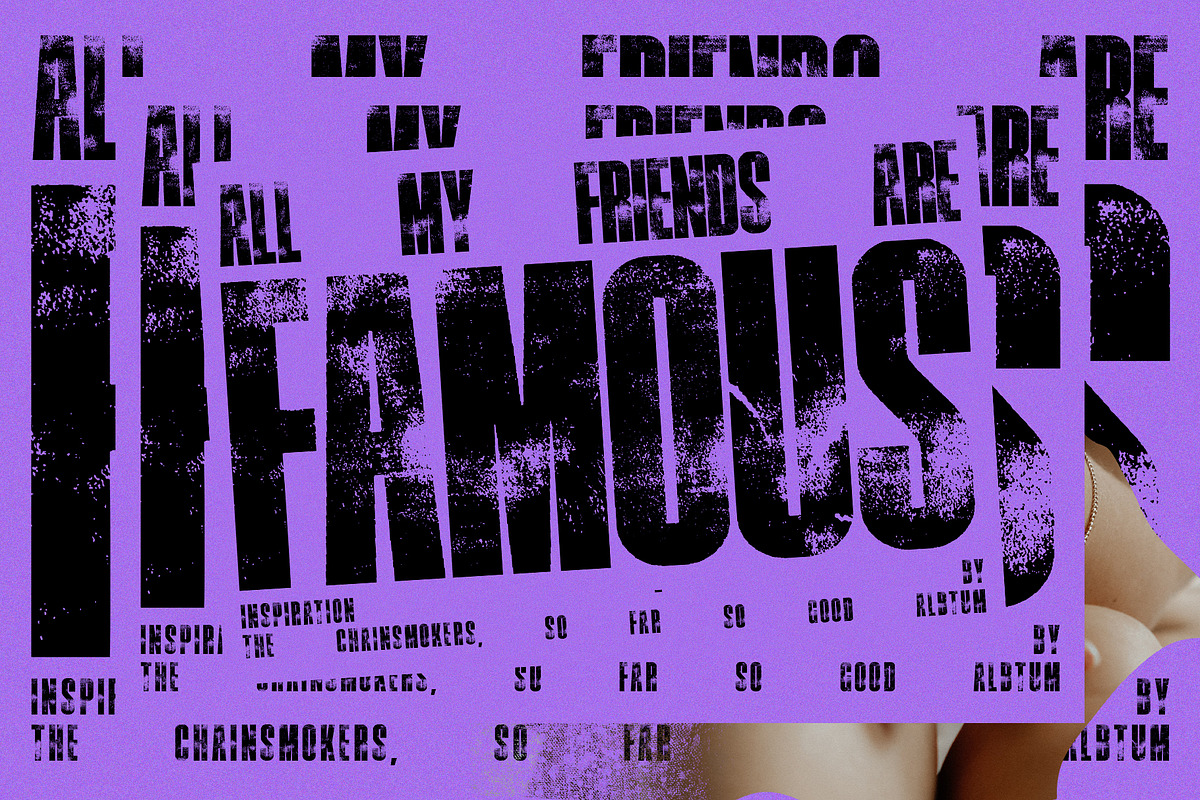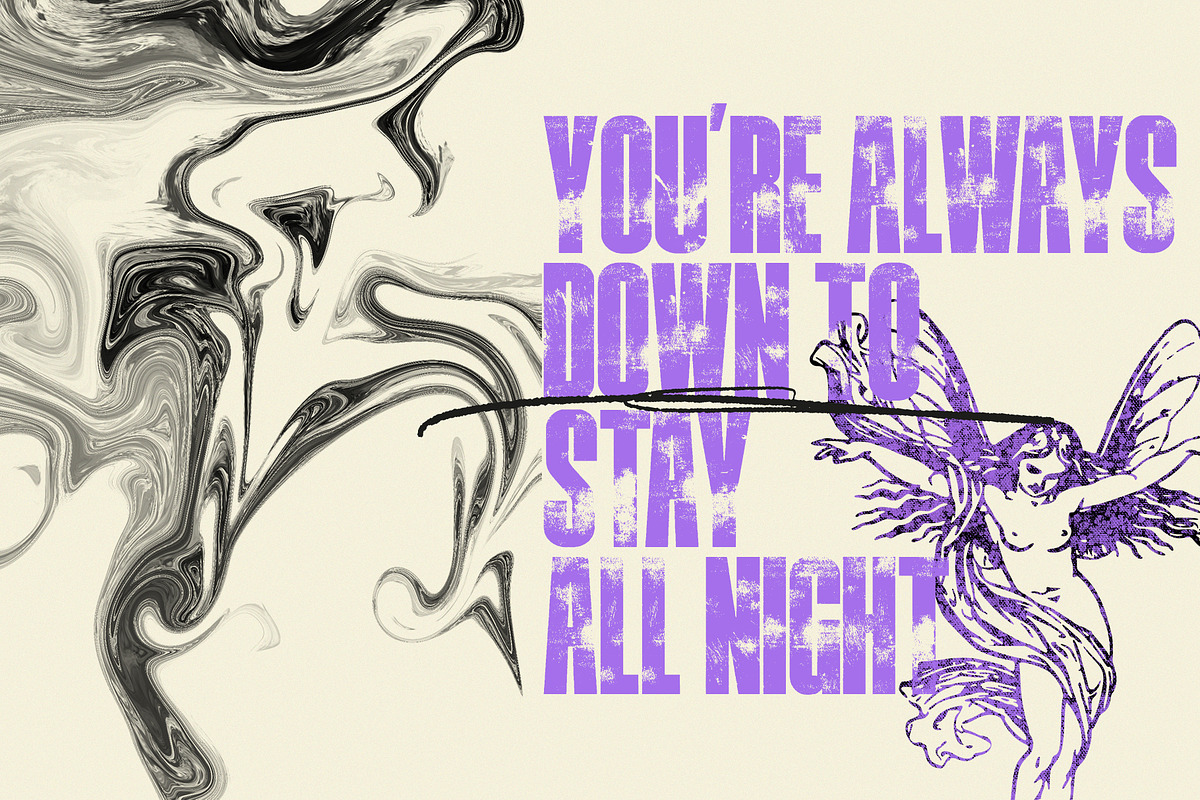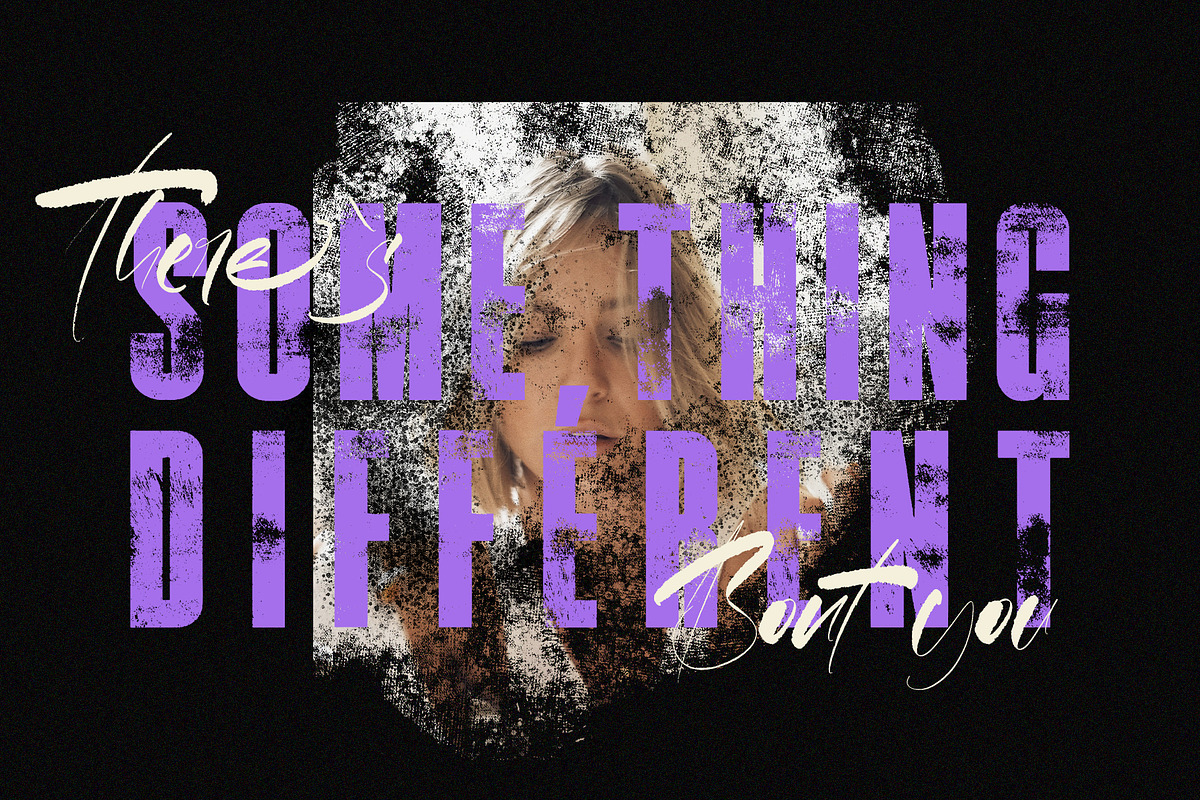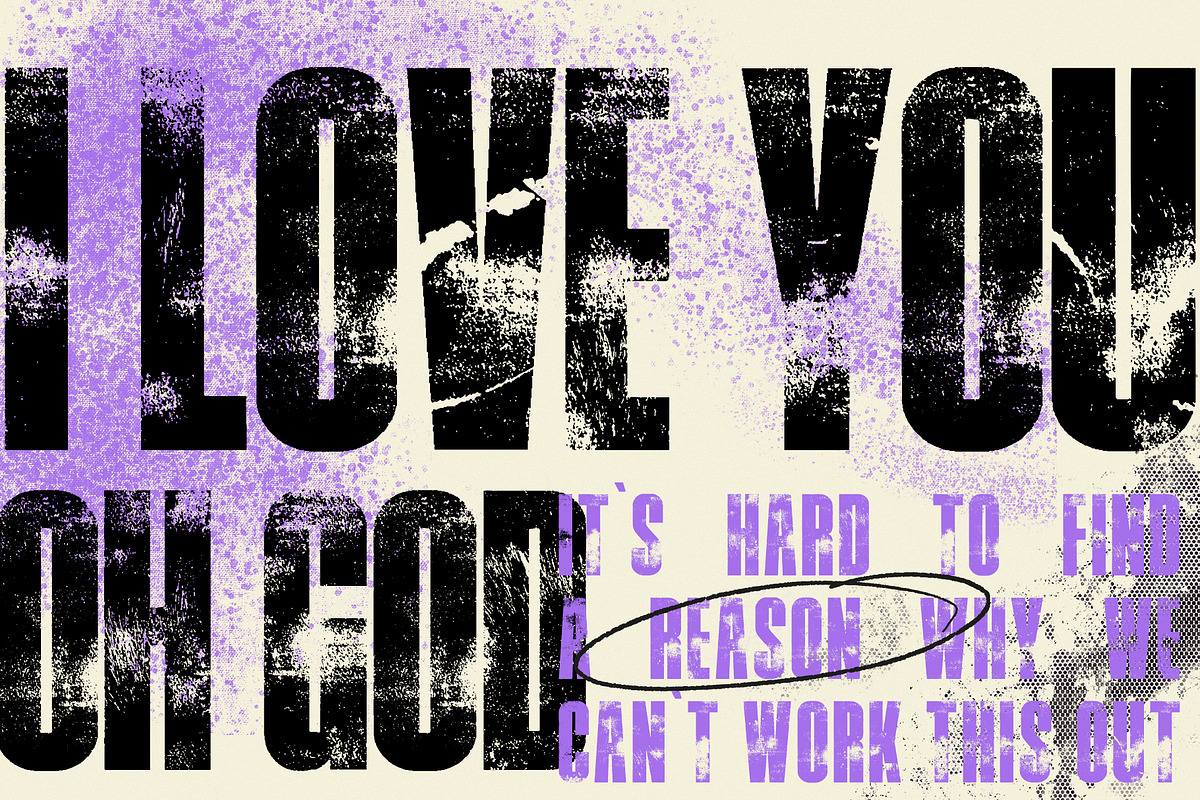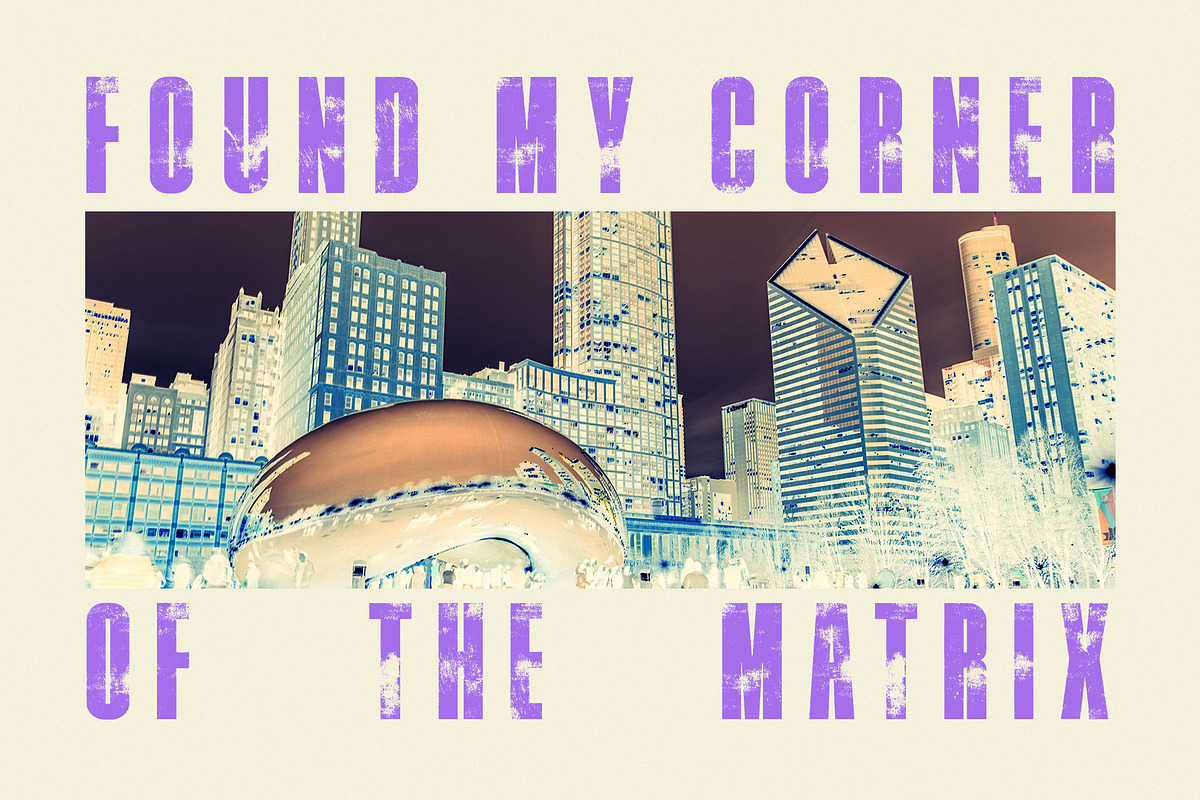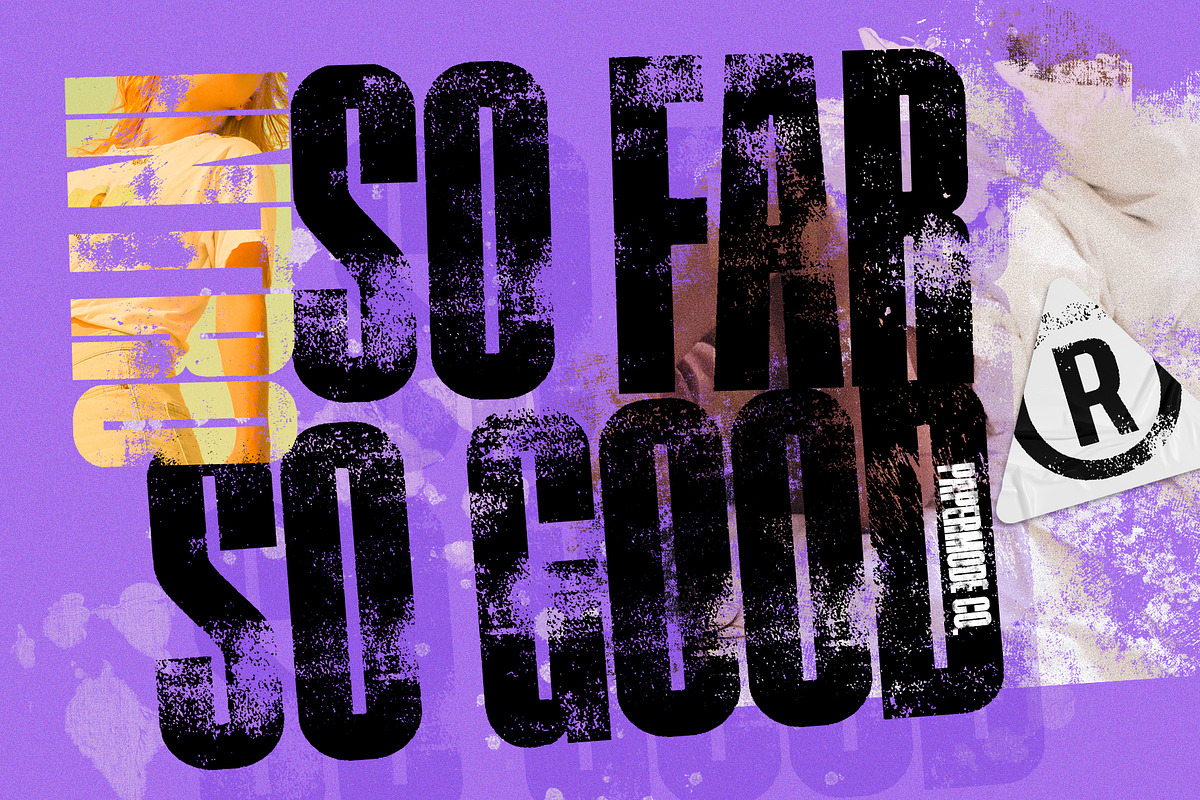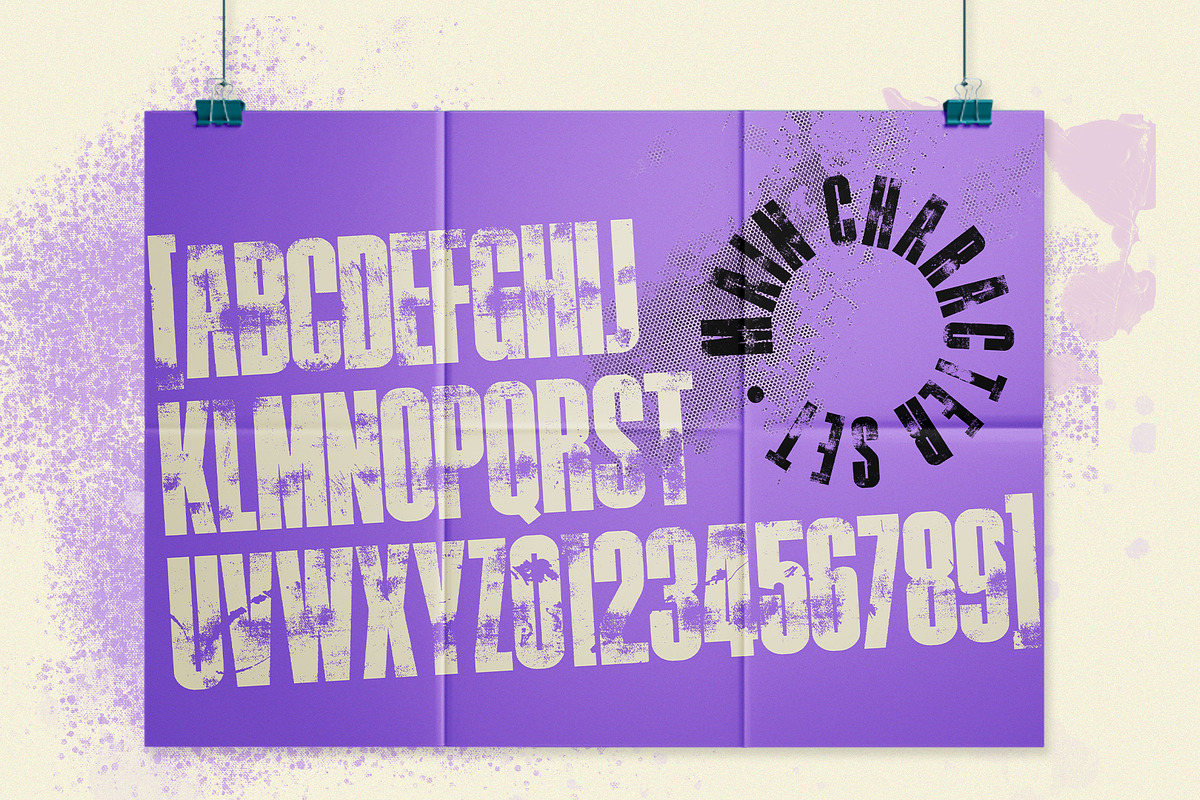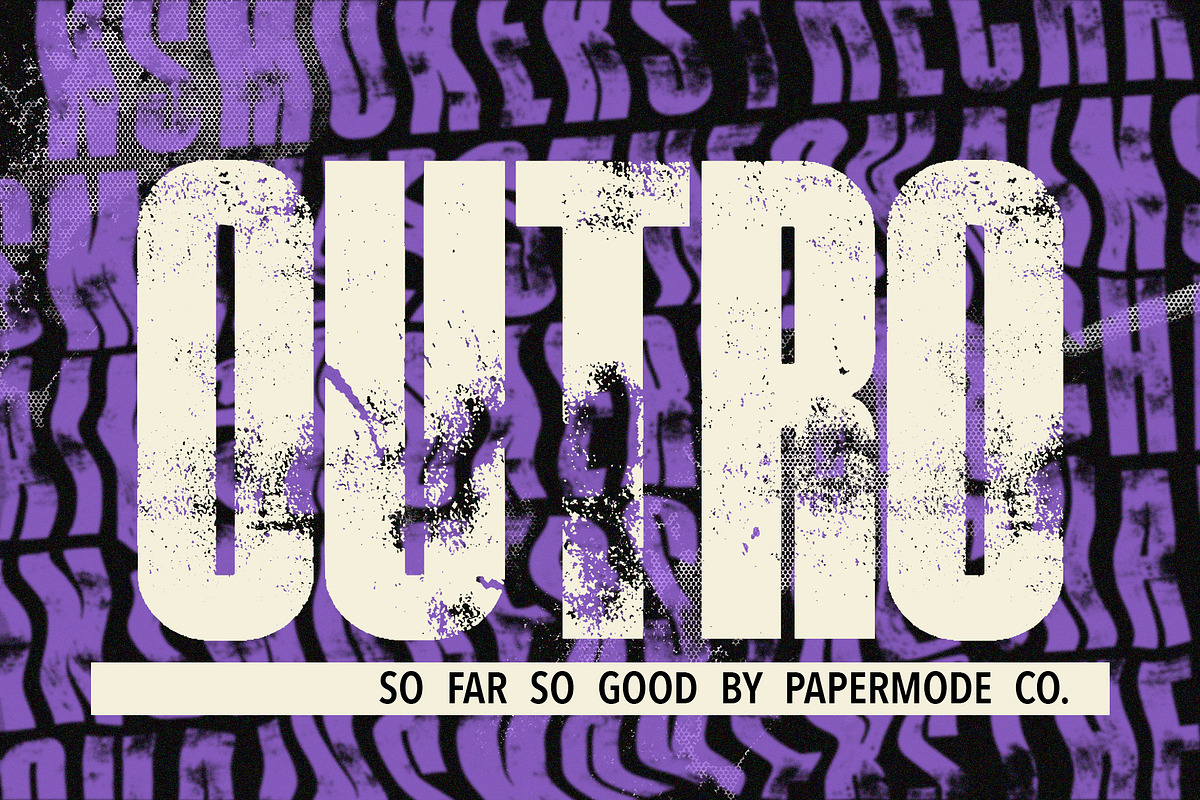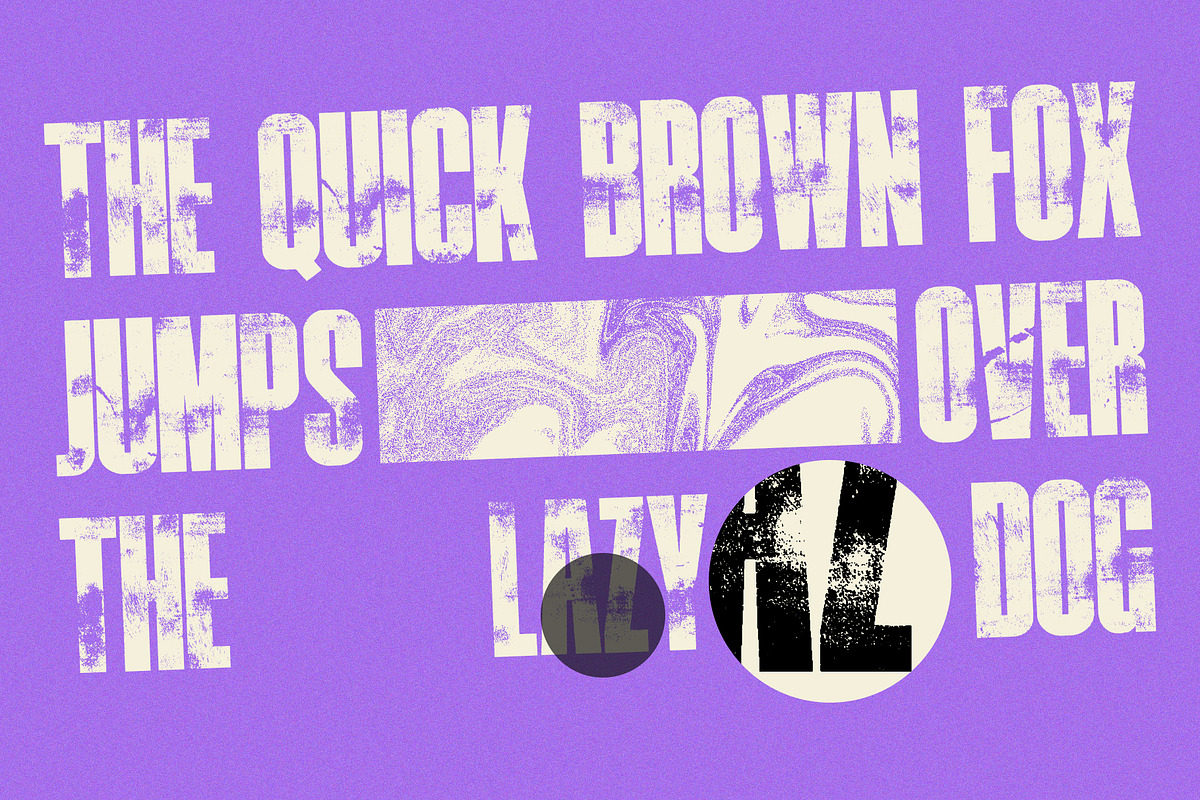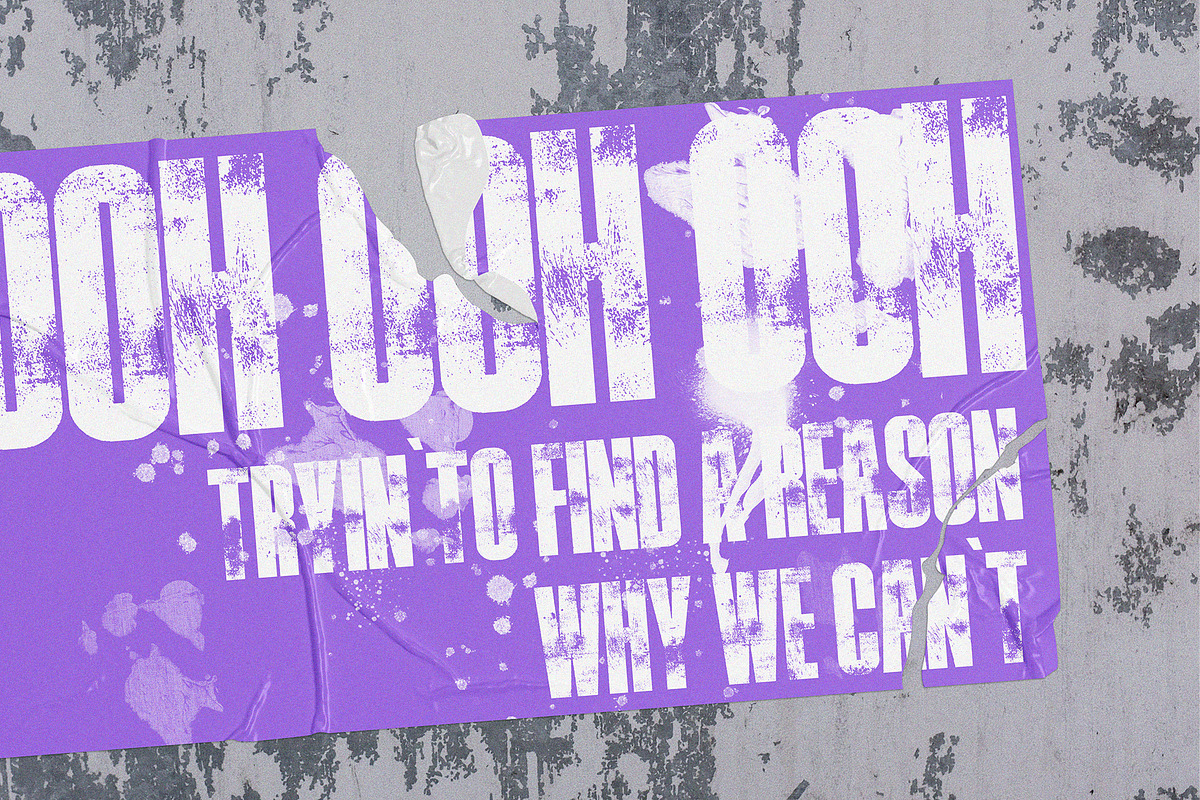
SO FAR SO GOOD
So Far So Good is a Decorative display font. So Far So Good come with ROUGH style, it will make this typeface can be used in all design projects and works perfectly for pairing with script typeface or handmade fonts, Headlines, Posters, Packaging, Postcards, Invitation, Wedding Sign, Sign Painting, Signboard, and much more.